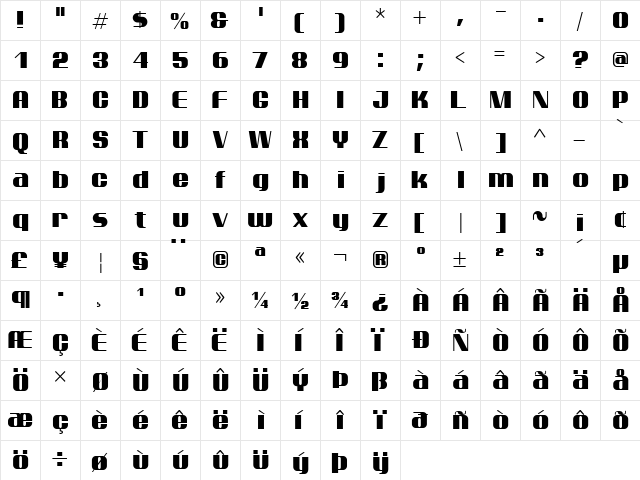
Ptarmigan Regular
Design Context for Ptarmigan Typeface
Ptarmigan takes a measured approach to typography — its balanced proportions and neutral character make it a reliable workhorse for both digital and print work.